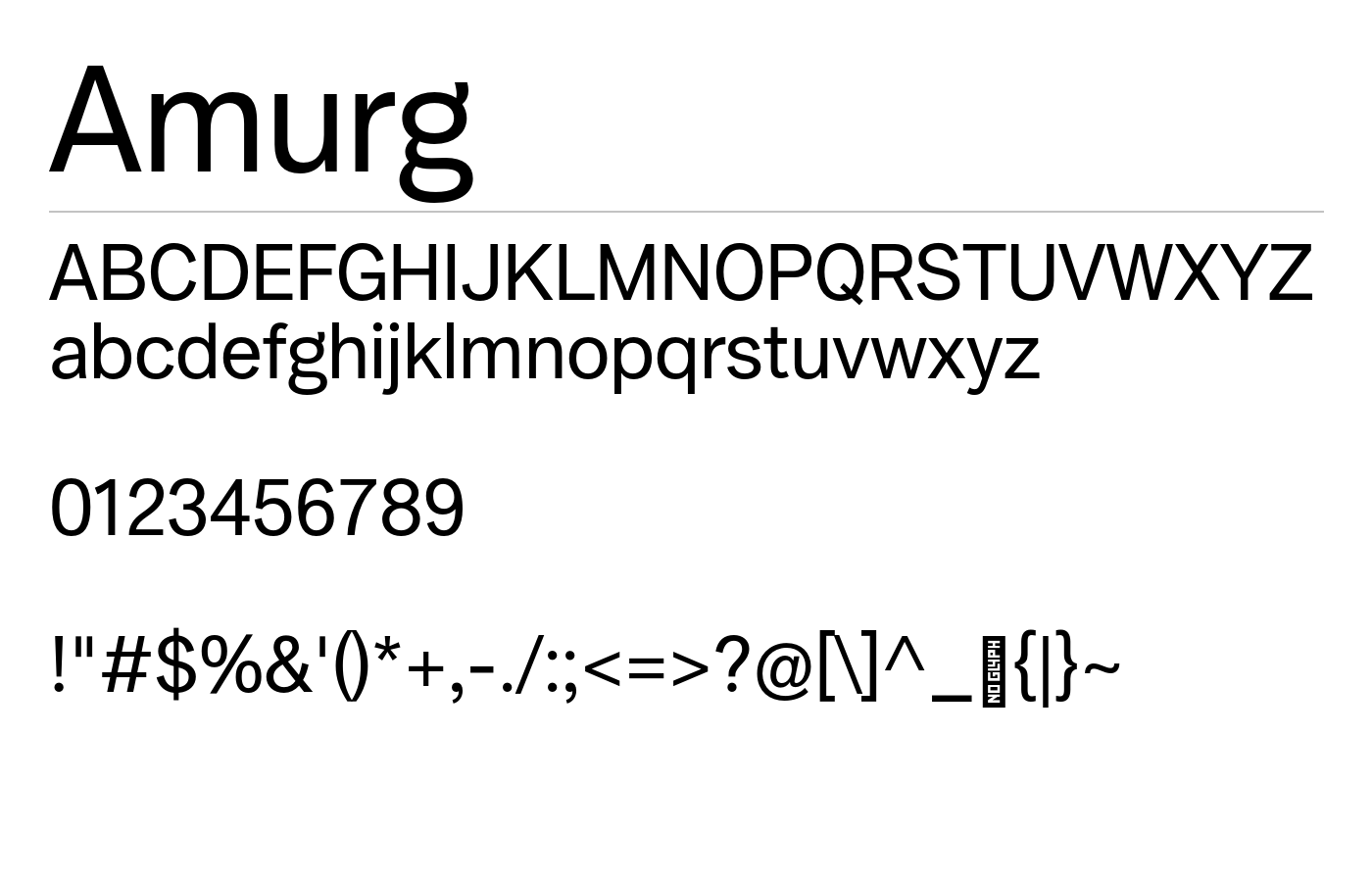
Amurg is a clean, modern sans serif font characterized by its regular weight, normal width, and medium x-height that ensures excellent readability. Its geometric yet slightly softened letterforms, including distinctive double-story a and g, create a contemporary and approachable feel ideal for both headlines and body text in digital and print contexts. This versatile typeface works well for branding, editorial design, and websites, bringing a friendly yet professional tone to any project.
Amurg Font
About Amurg Font
| Font family | Amurg Font |
| Designer | Sabina Chipara |